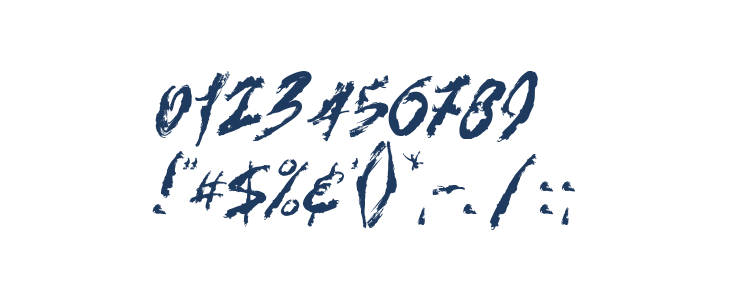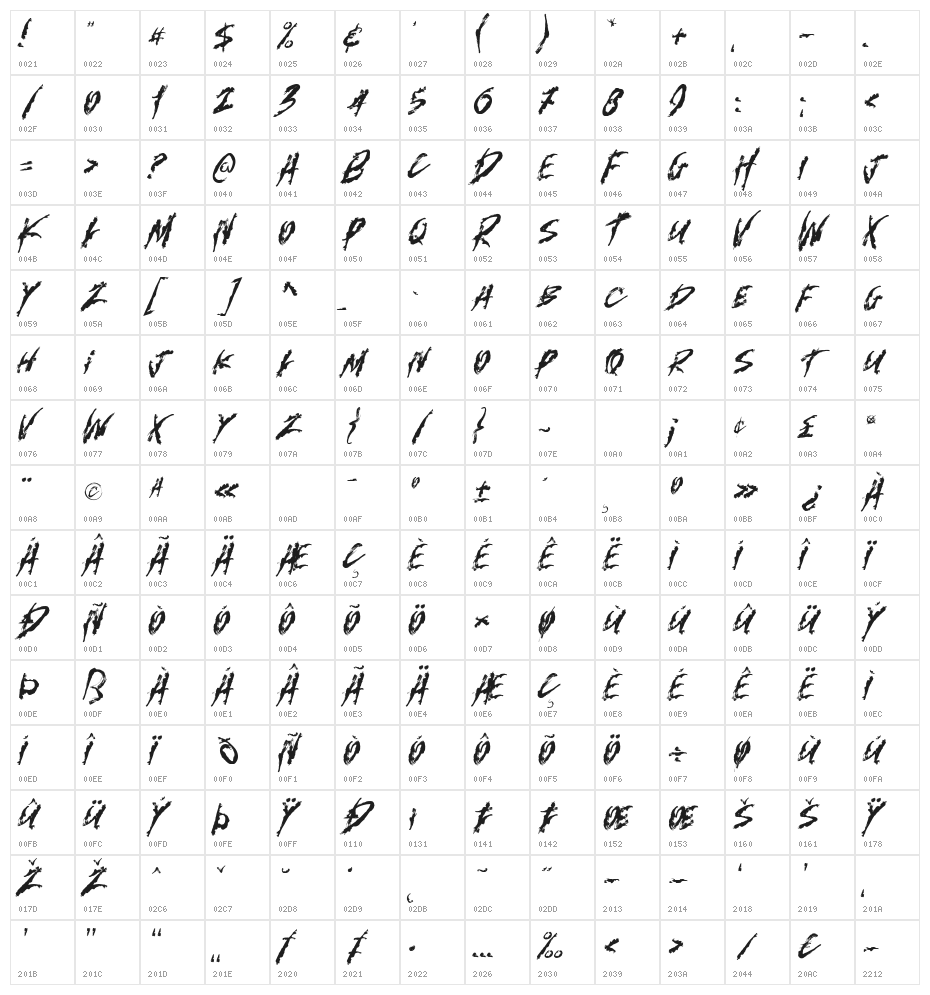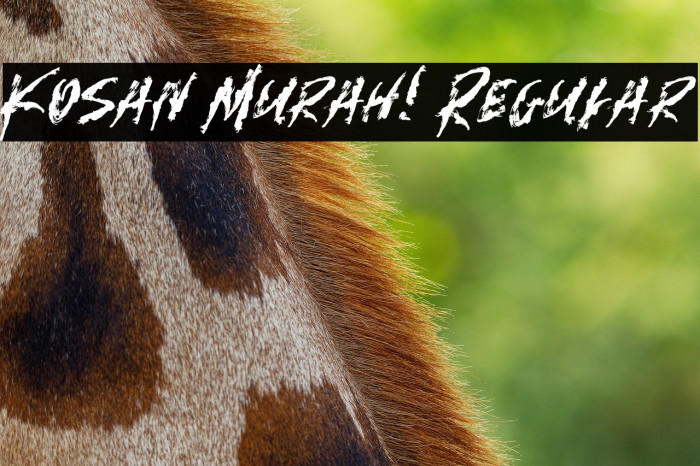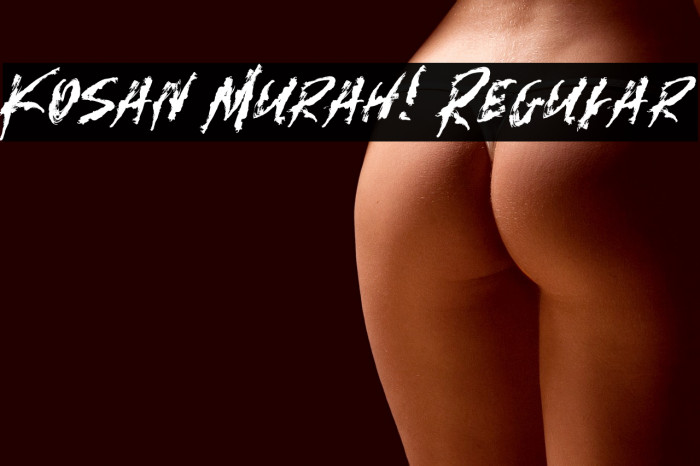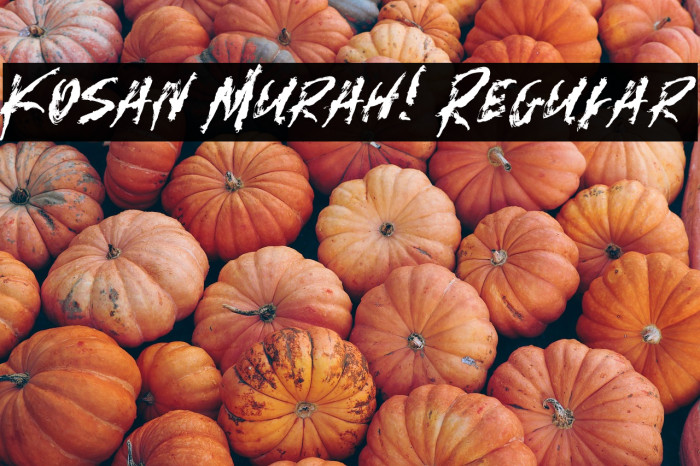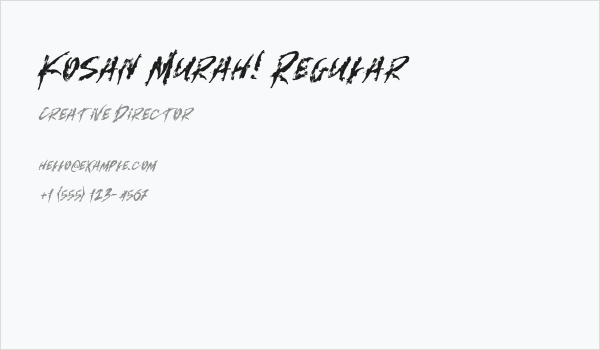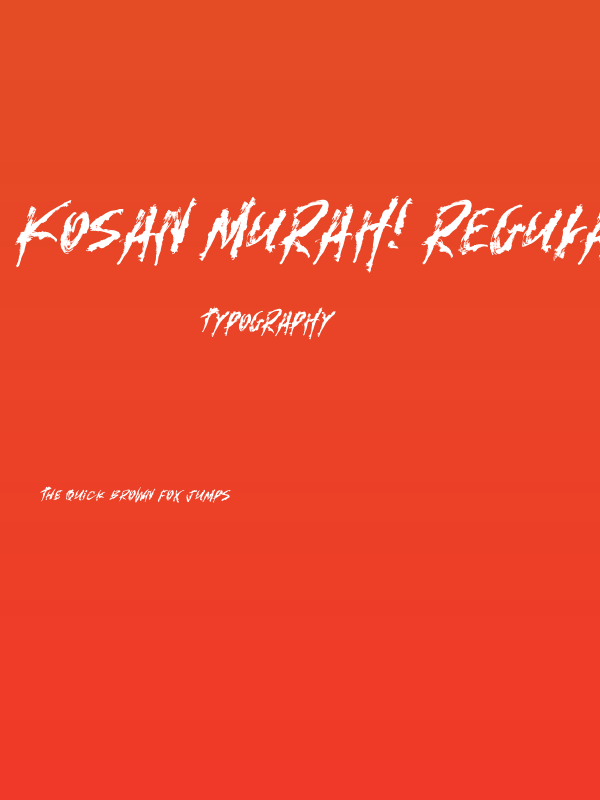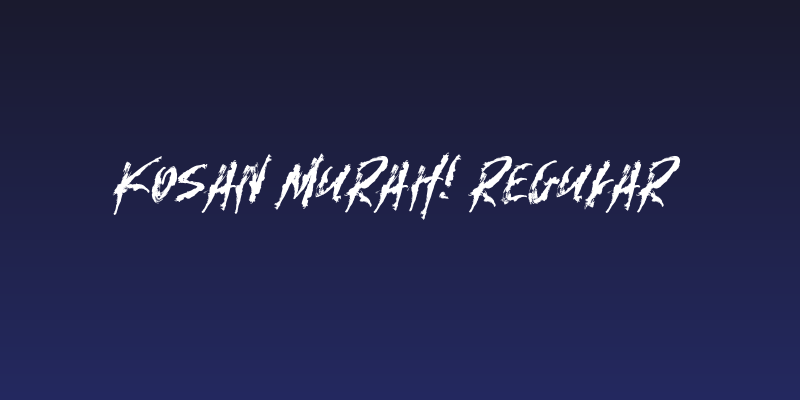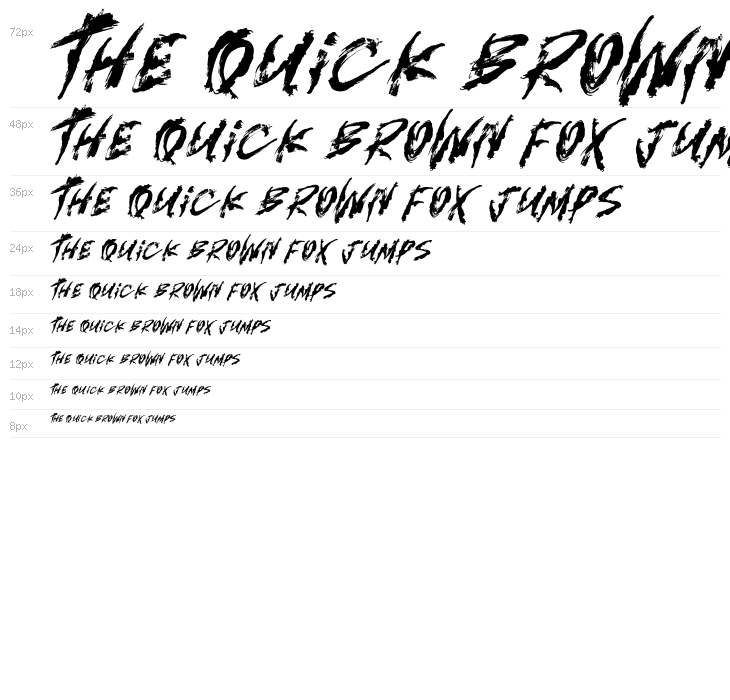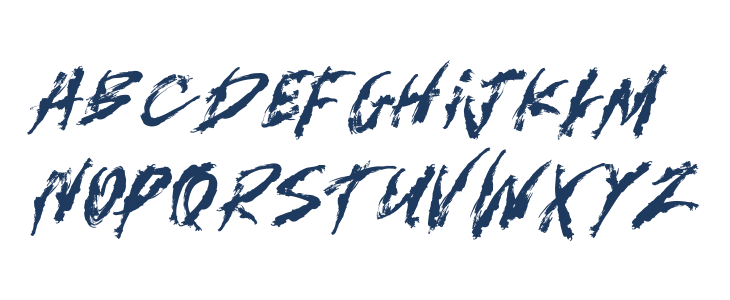
Kosan Murah! Regular Font
Kosan Murah! Regular Description
This font features a bold, brush-stroke style that exudes energy and dynamism. The characters are crafted with a rough, textured appearance, giving them a raw and expressive feel. Each letter is unique, with varying thickness and irregular edges, reminiscent of hand-painted signage or graffiti art. The uppercase and lowercase letters maintain a consistent style, while the numbers and special characters complement the overall aesthetic. This font is perfect for projects that require a strong, artistic statement.
| Proposed Projects | Ideal for posters, album covers, streetwear branding, and artistic projects. |